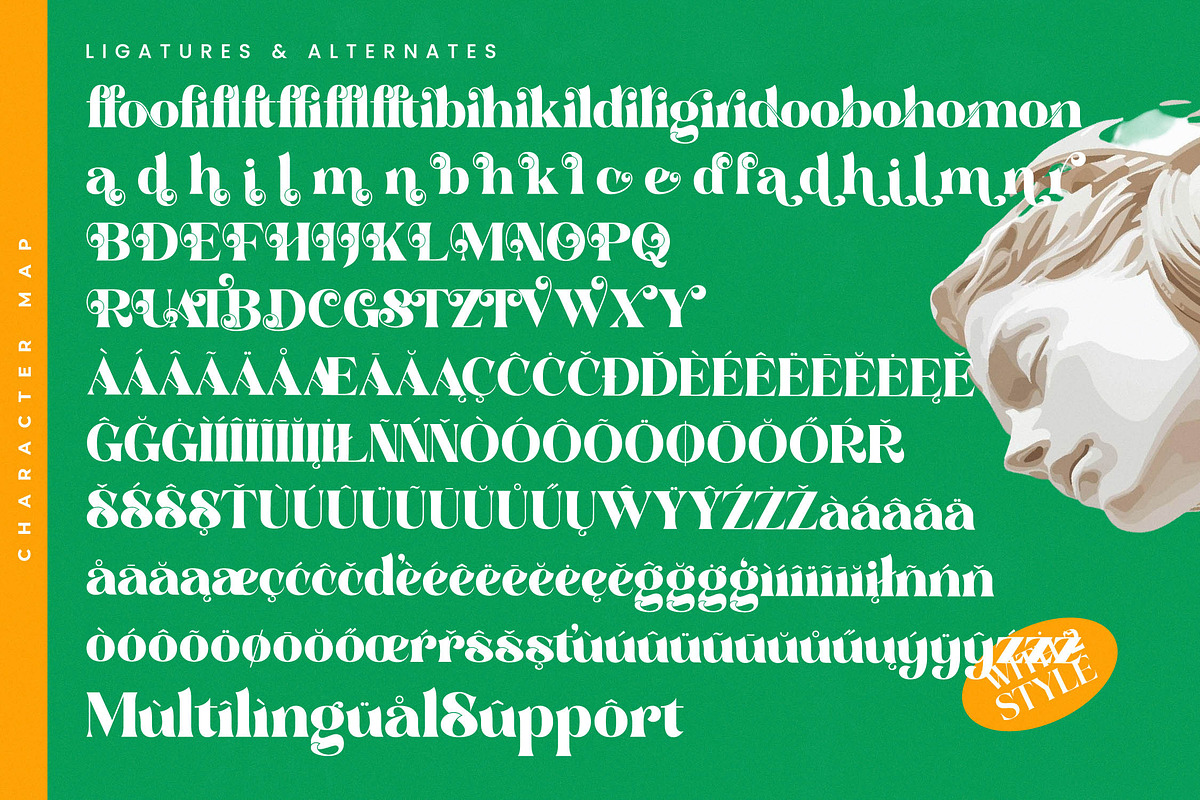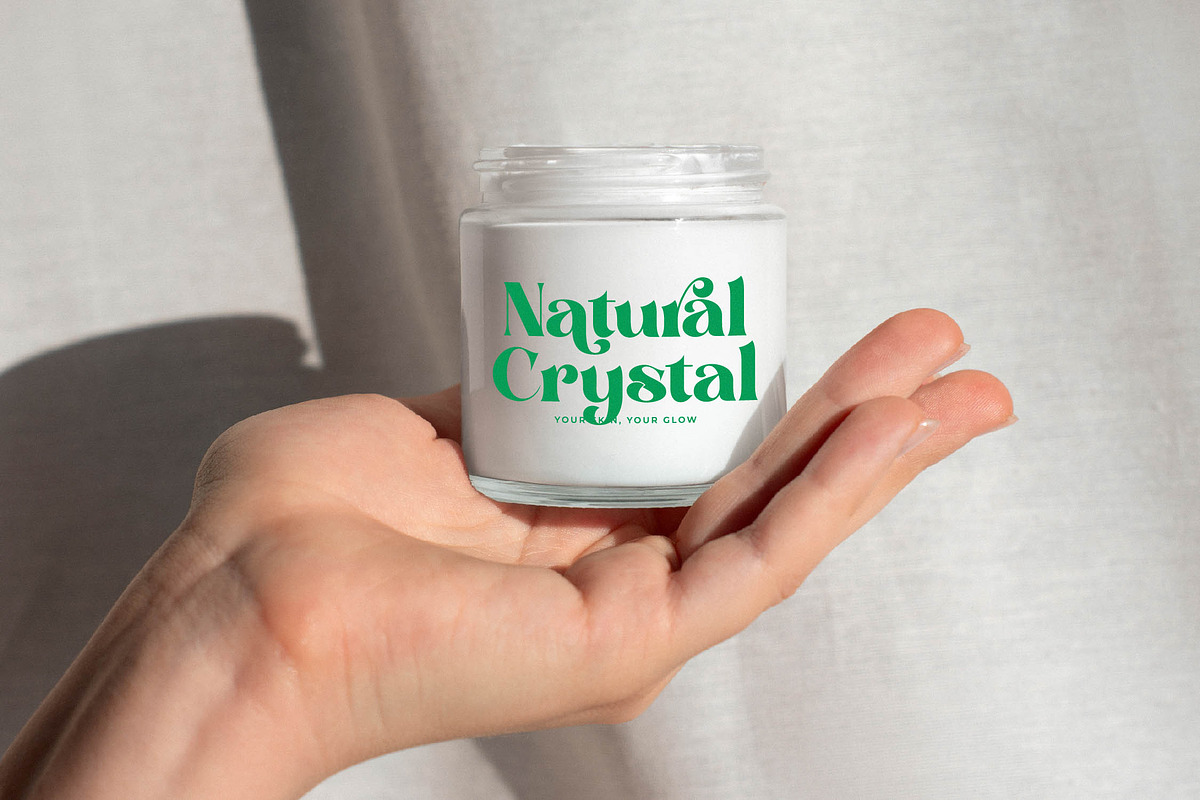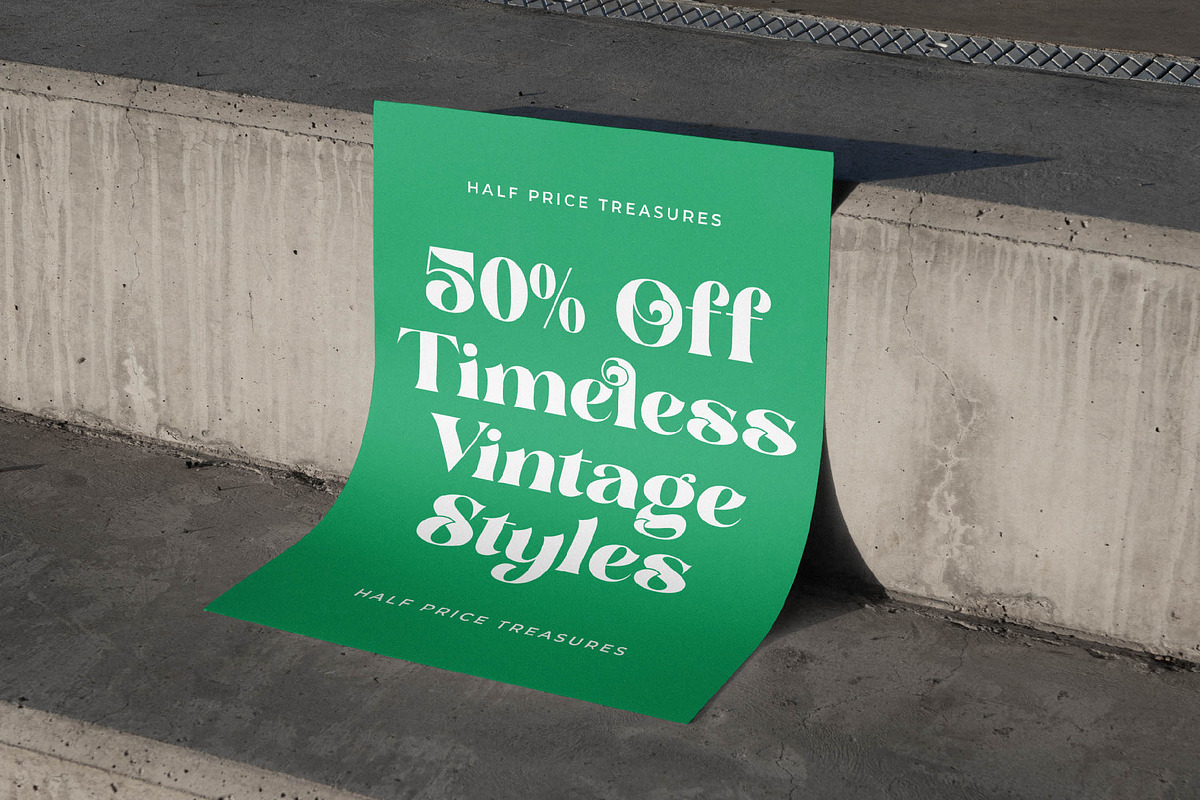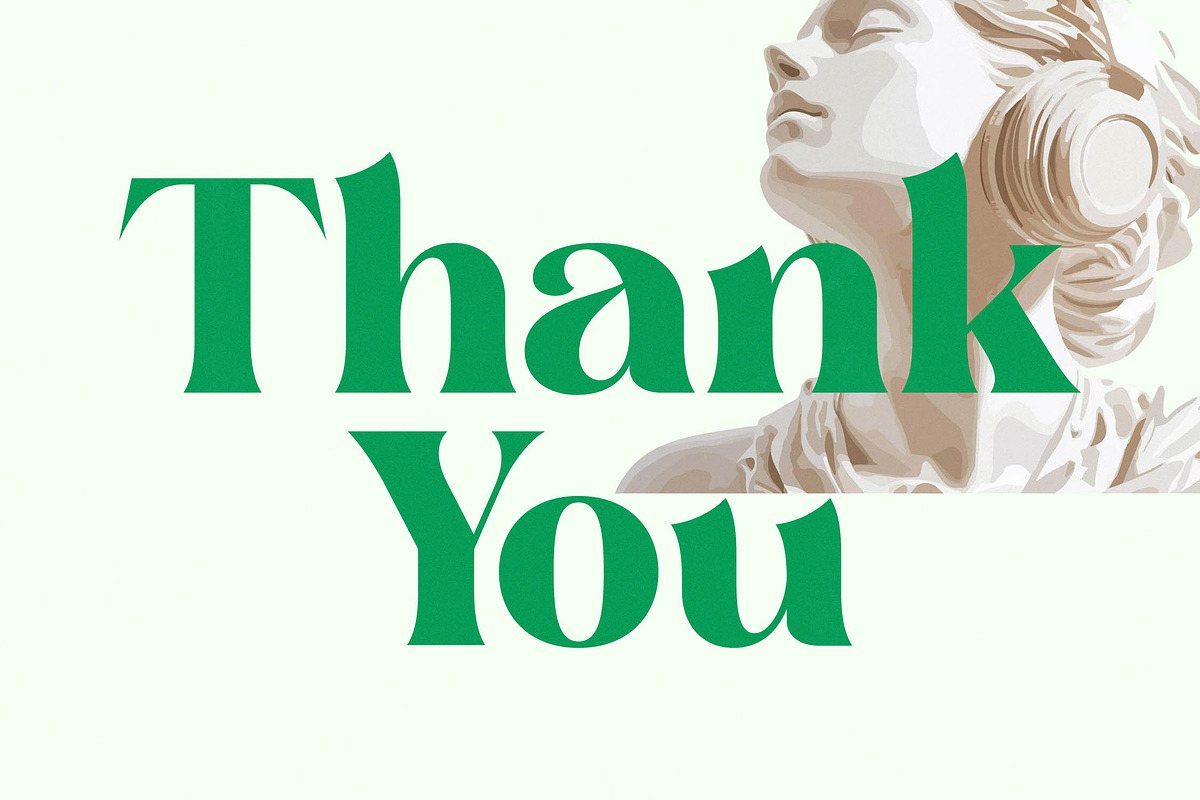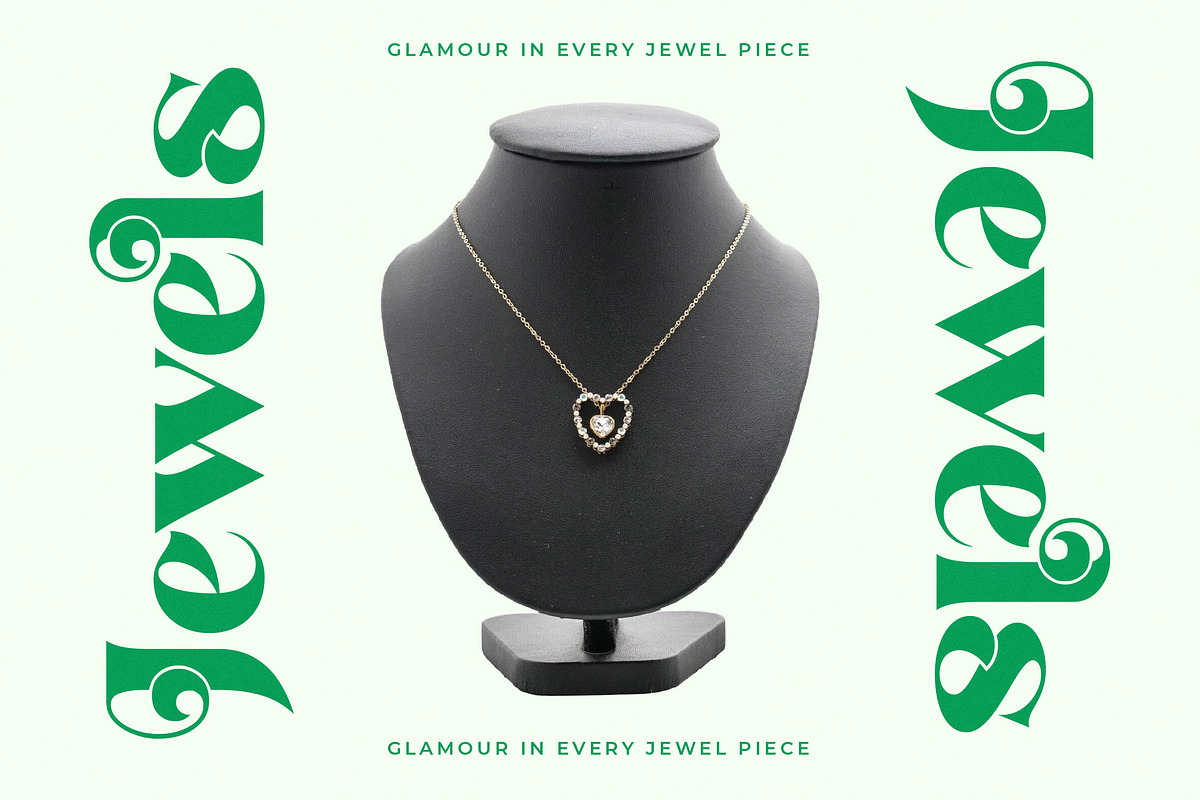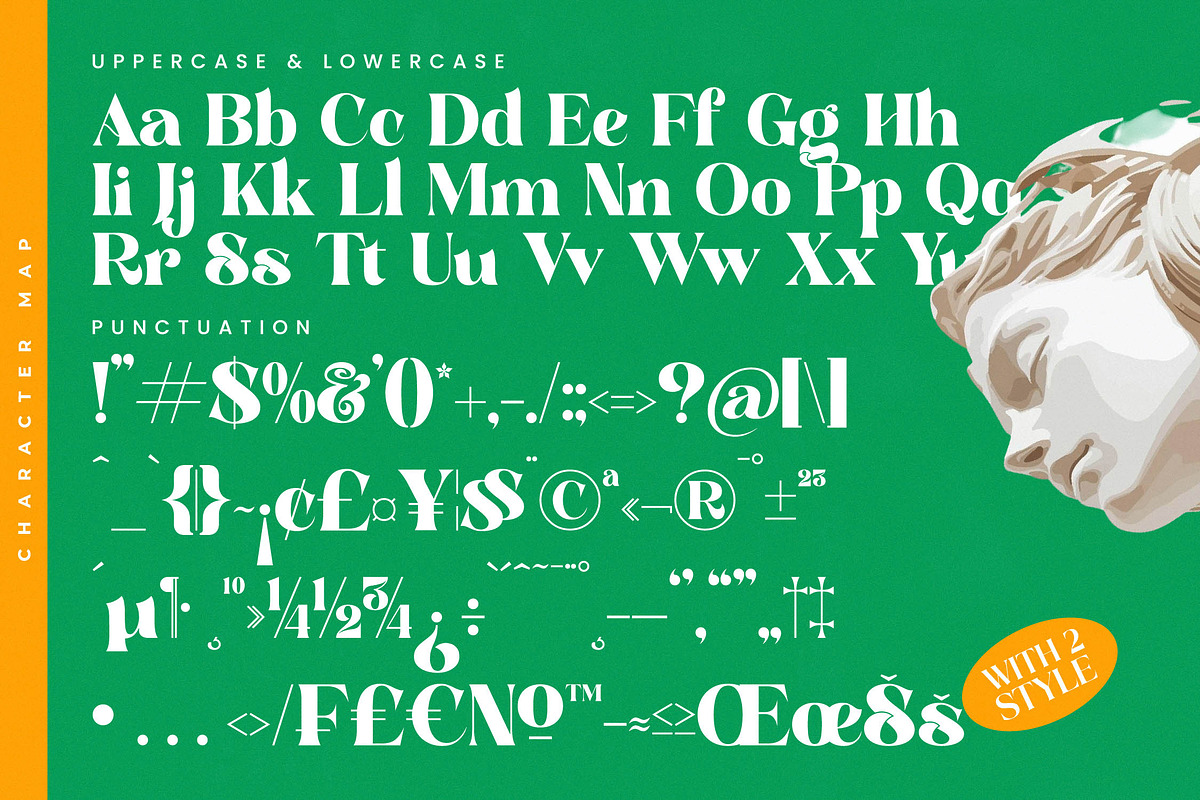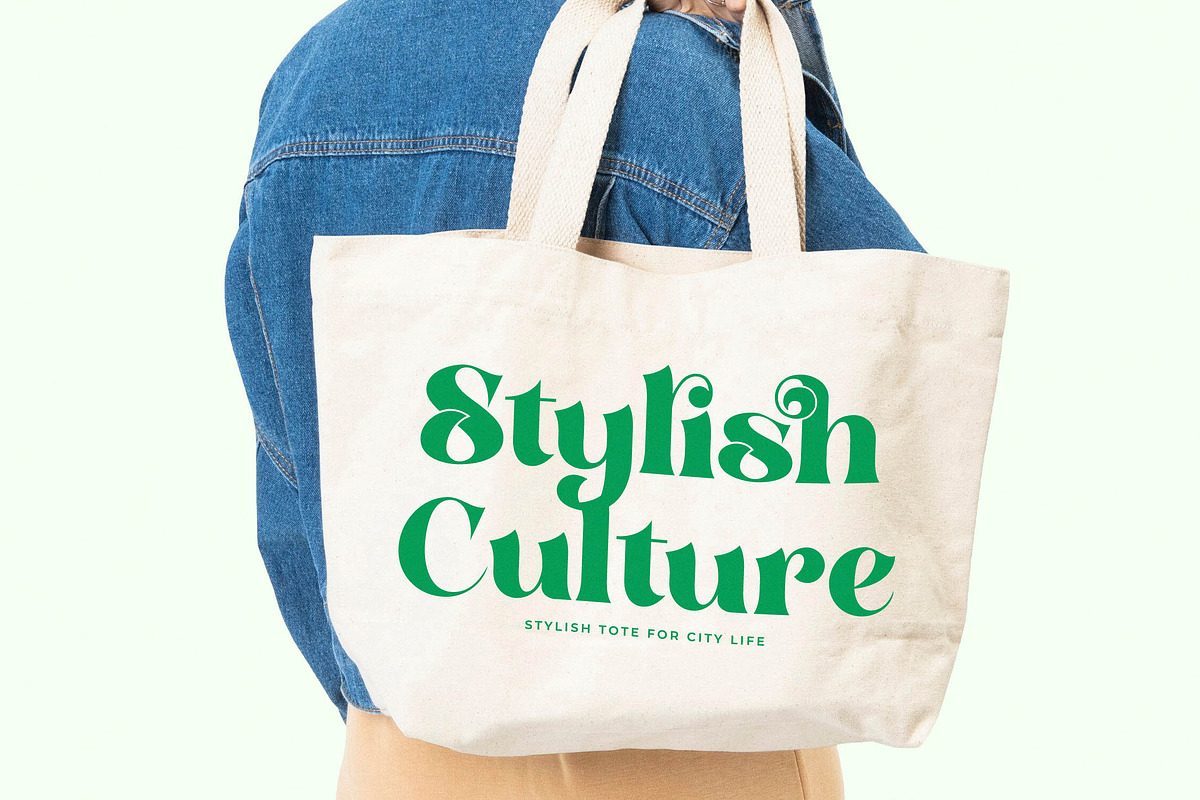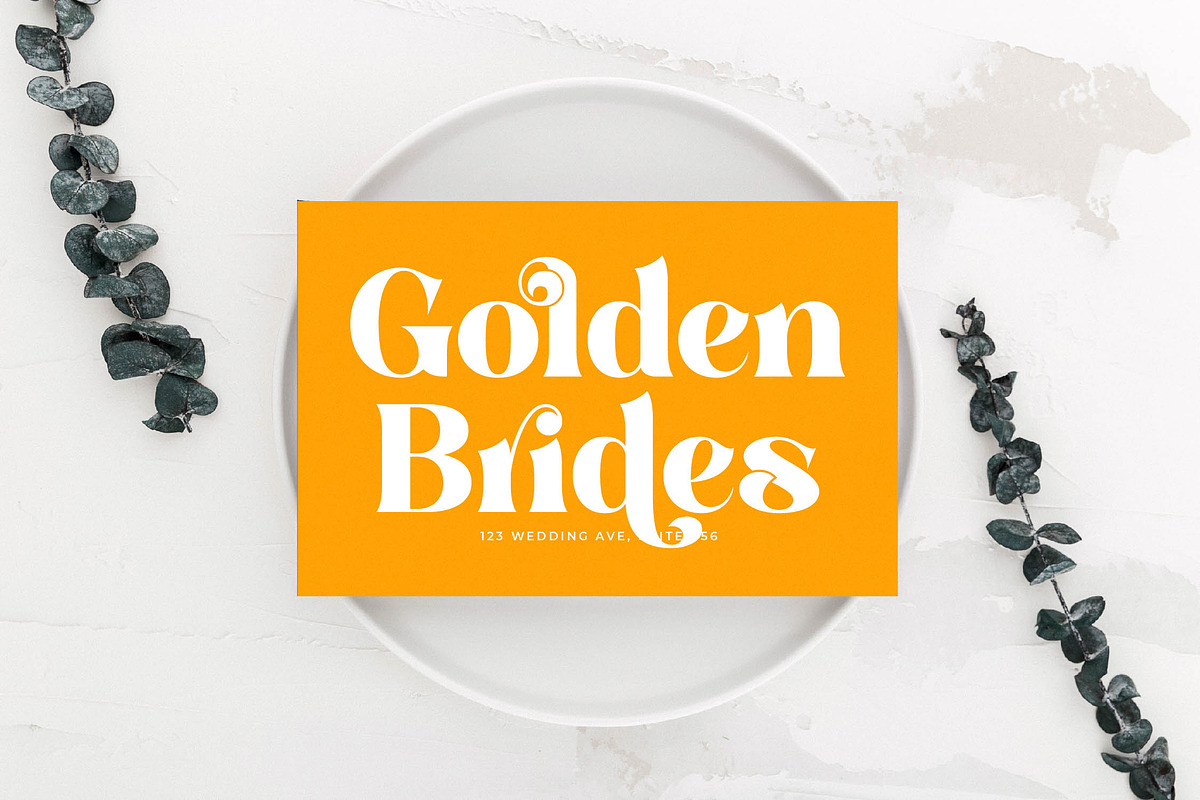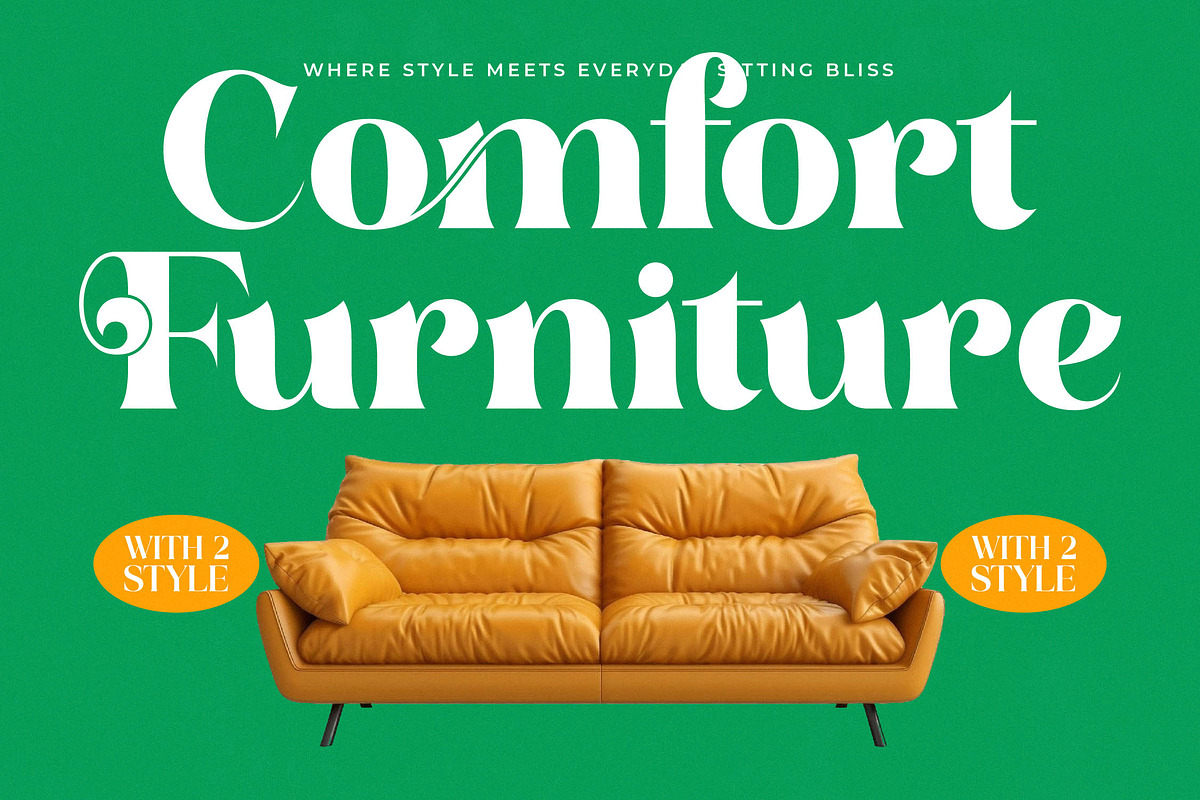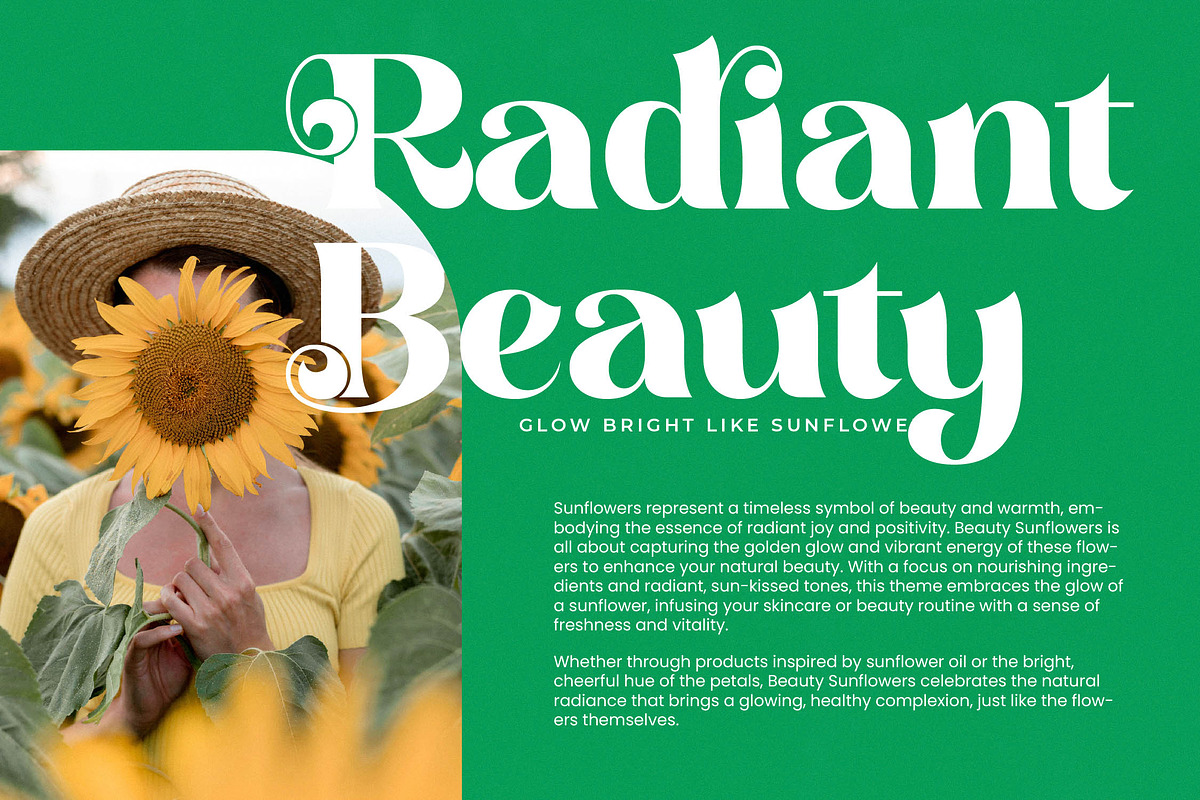
Master Gedon Modern Bold Serif
Master Gedon is a masterclass in sophisticated typography, blending classical elegance with a sharp, contemporary edge. It invites a sense of timeless luxury into every layout, making it the definitive choice for designers seeking a refined visual voice.
Inspired by the juxtaposition of ancient sculpture and modern street style, this font captures a unique neo-classical energy. It evokes the feeling of a high-end art gallery where tradition meets the bold, uninhibited spirit of today's digital culture.
This modern serif display is defined by its luxury typography and high-contrast serif architecture, creating an immediate branding impact. Its heavy weights and graceful curves make it a quintessential editorial font that demands attention without sacrificing legibility.
Riding the wave of the modern serif trend, this typeface is perfect for designers looking for editorial display fonts that offer more than just standard letterforms. It represents the shift towards character-driven typography where every glyph tells a story of prestige and artistic flair.
From high-end logo design to cohesive branding systems, this typeface excels in editorial spreads and premium packaging. It is equally suited for a minimalist wedding invitation or a bold fashion lookbook, providing a versatile tool for luxury markets.
The package includes over 400 glyphs featuring a rich library of ligatures and alternates to customize your text. With beautiful swashes and full multilingual support for international characters, it ensures your message is heard across the globe.
- Ligature 21 Alternate 53